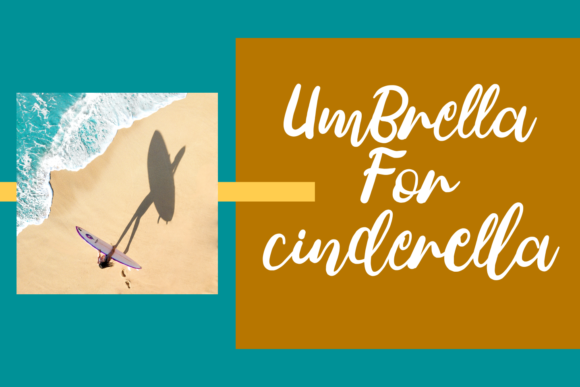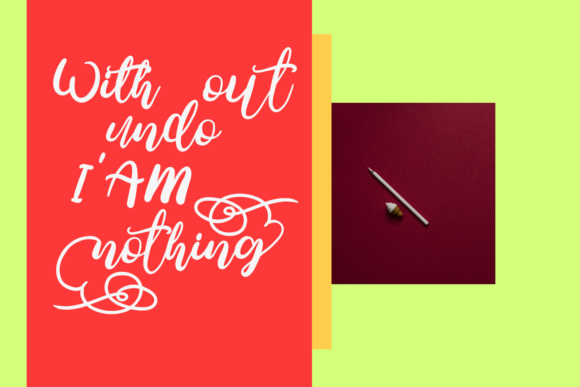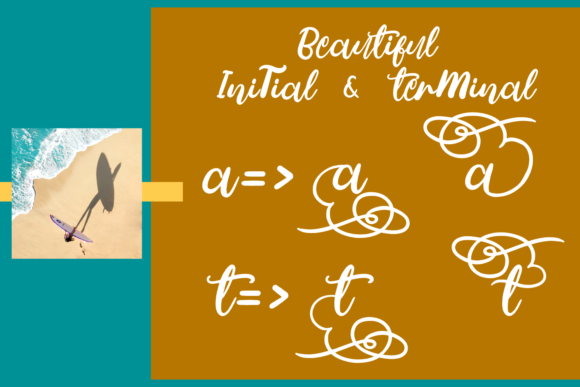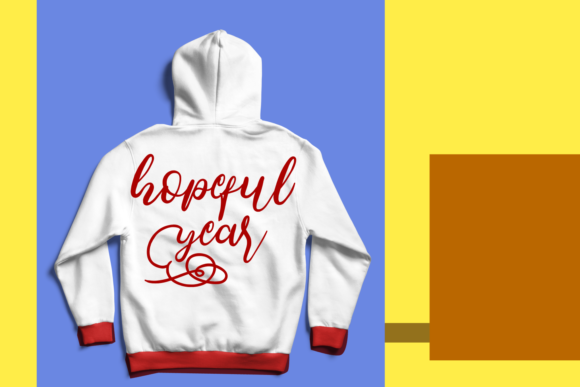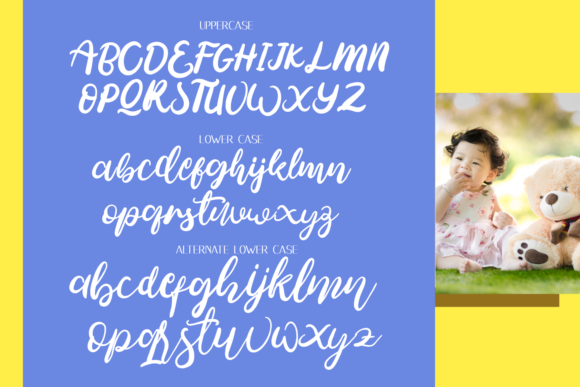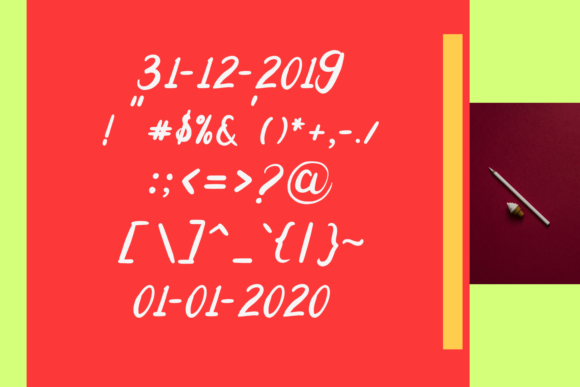
Introduction to I Love January Font
I Love January is a bouncy and charming calligraphy font that’s great for any crafting idea.
Ignite your creativity with its gorgeous set of PUA-encoded swashes .